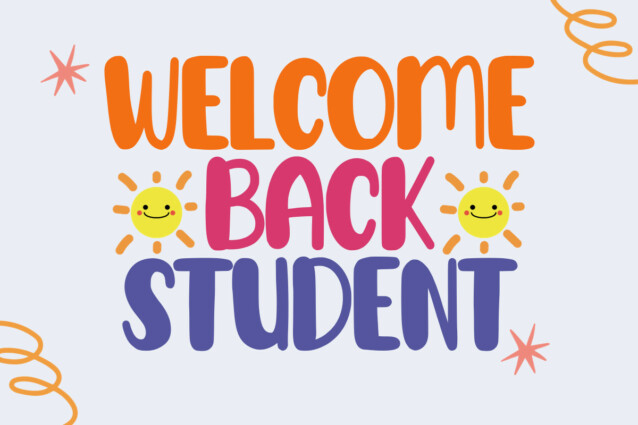
School Special Display Font
School Special Display Font is a sweet and friendly handwritten font. Its natural and unique style makes it incredibly fitting to a large pool of designs. The only limit is your imagination!